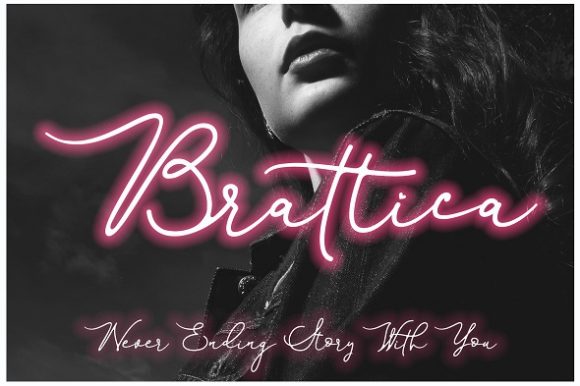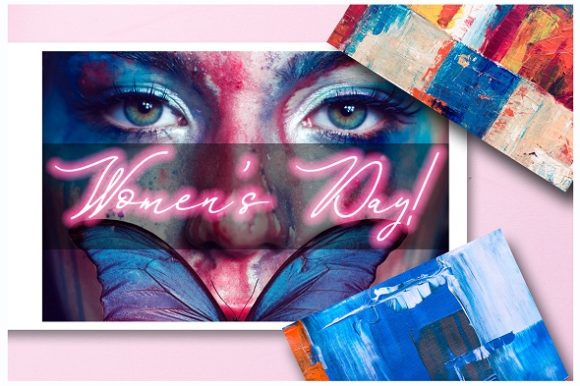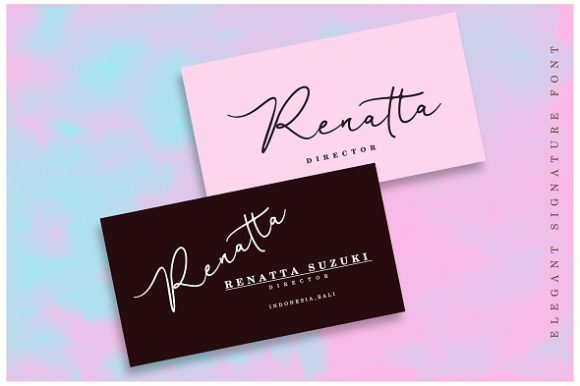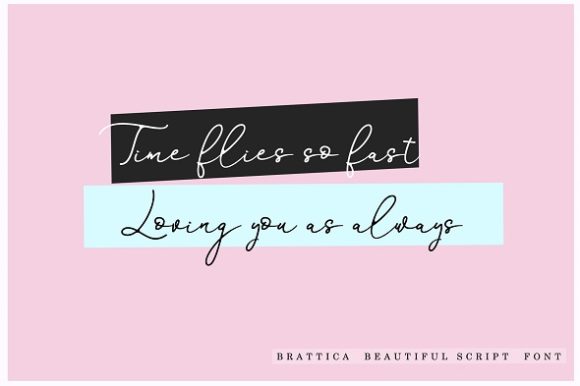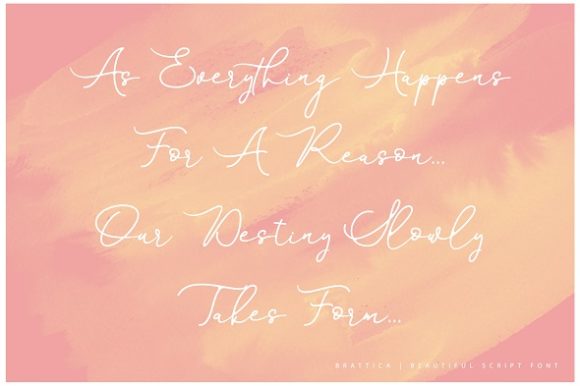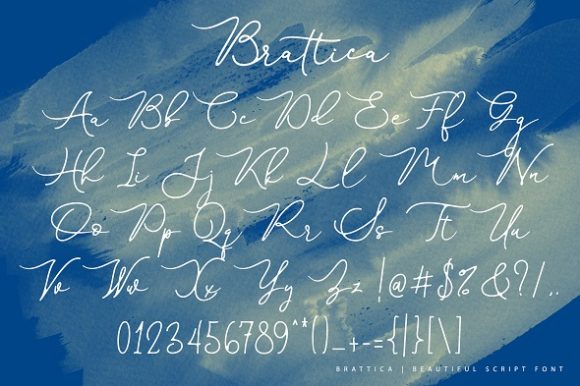
Brattica Script Font
About Brattica Script Font
The Brattica Script is a font with an awesome and classy feel. It has a natural, yet elegant touch and is absolutely easy to use.